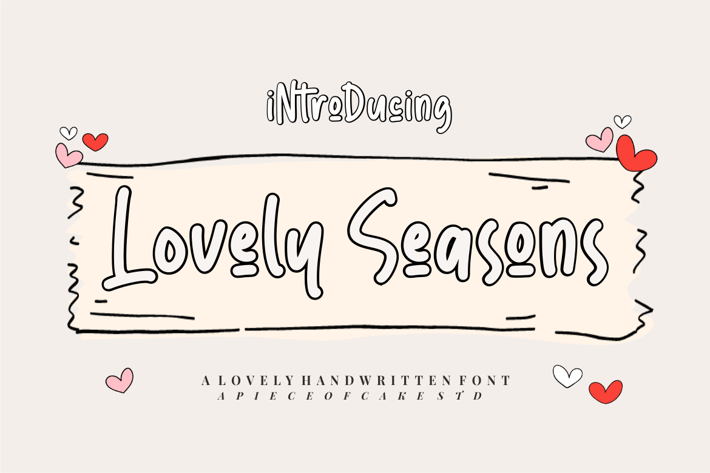
Lovely Seasons - A Handwritten Font
Introducing, Lovely Seasons is a lovely and playful handwritten font suitable for your design project needs, such as; wedding themes, valentine's themes, christmas themes, social media posts, quotes, overlays on images, tagline logos, posters, print needs, website banners, and more.
A set of uppercase and lowercase glyphs
Number, symbol, and punctuation
Some Swashes and alternate